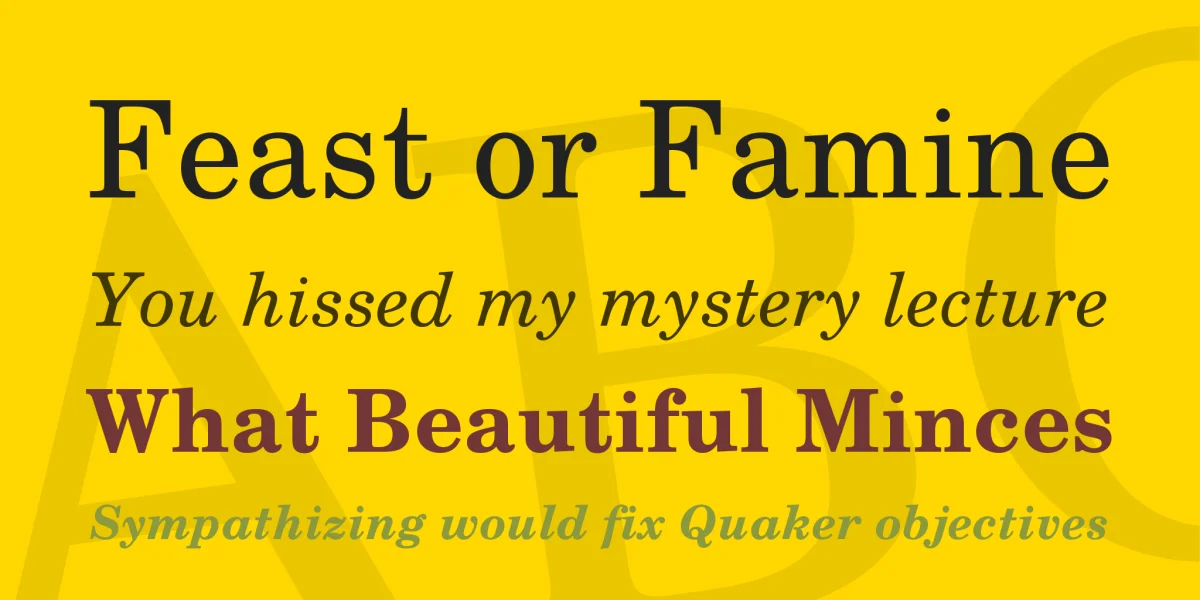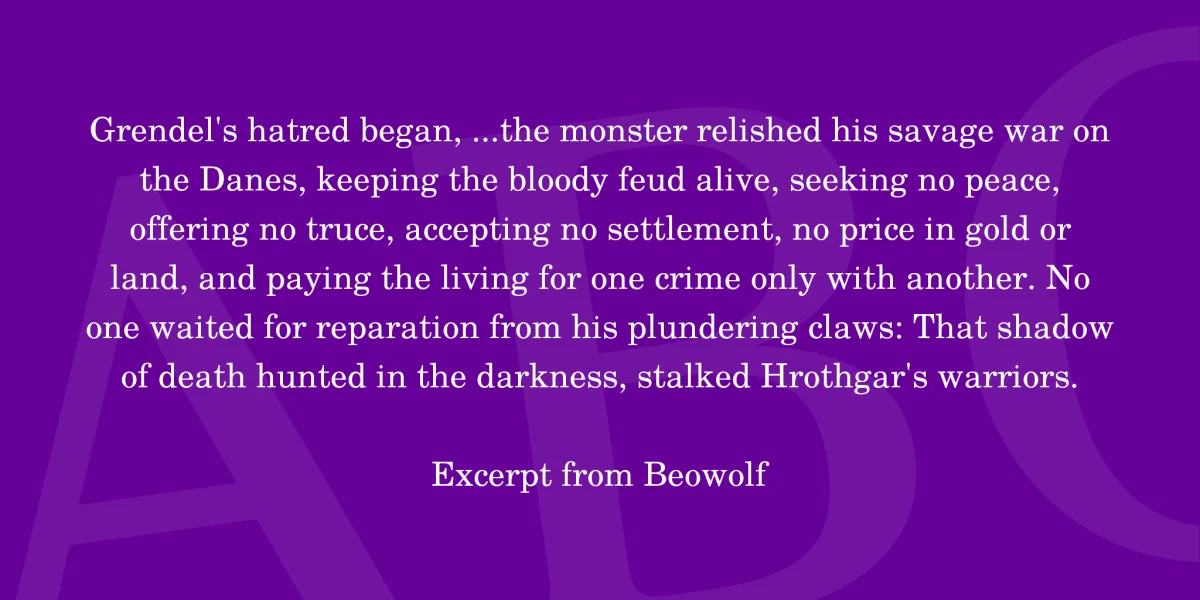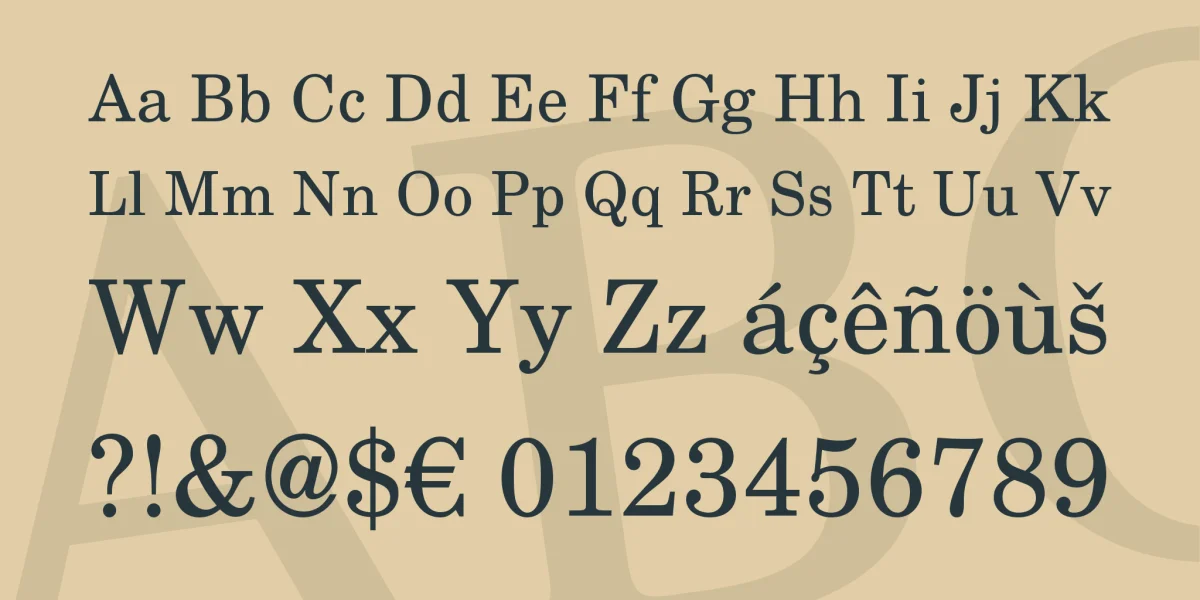
TeX Gyre Schola can be used as a replacement for the Century Schoolbook typeface (designed by Morris Fuller Benton, 1919, for the American Type Founders; originally, italics were not designed, they were added in later revivals by Linotype and ITC).